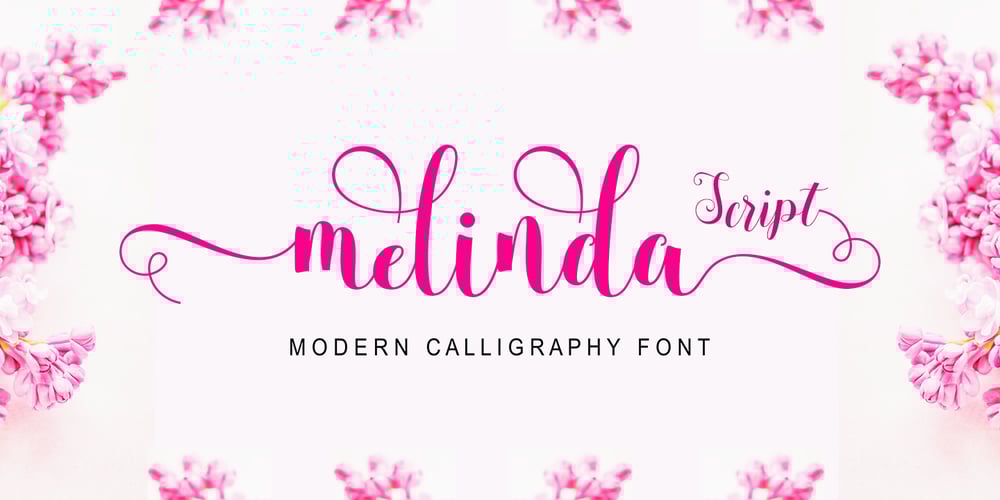
Melinda Script Font Family was designed by khaidir and published by Gatype. Melinda Script contains 1 styles and family package options. The Melinda is a smooth, elegant and flowing handwritten font. It has a beautifully balanced character, it fits into many designs. Melinda features a varied baseline, smooth lines, gorgeous glyphs, and stunning alternatives.Hand-drawn design elements allow you to create many beautiful typographic designs in an instant like branding, web design and editorial, prints, crafts, quotes, It’s great for logotypes, wedding invitations, romantic cards, labels, packaging, spelling of names and others. Add to your most creative ideas and watch how they bring them to life!Melinda includes OpenType stylistic alternates, ligatures and International support for most Western Languages.To enable the OpenType Stylistic alternates, you need a program that supports as Adobe Illustrator CS, Adobe Indesign & CorelDraw X6-X7, Microsoft Word 2010 or later versions.How to access all alternative characters using Adobe Illustrator:https://www.youtube.com/watch?v=XzwjMkbB-wQMelinda is coded with PUA Unicode, which allows full access to all the extra characters without having special designing software. Mac users can use Font Book , and Windows users can use Character Map to view and copy any of the extra characters to paste into your favorite text editor/app.How to access all alternative characters, using Windows Character Map with Photoshop:https://www.youtube.com/watch?v=Go9vacoYmBw